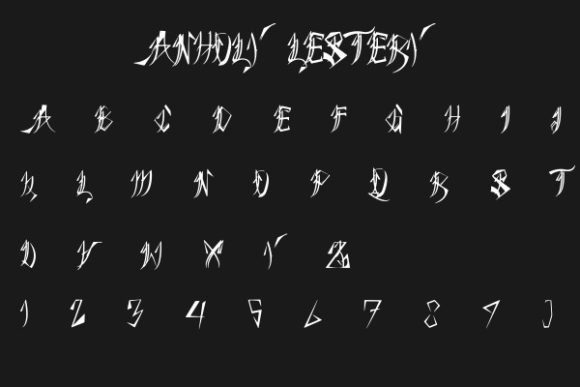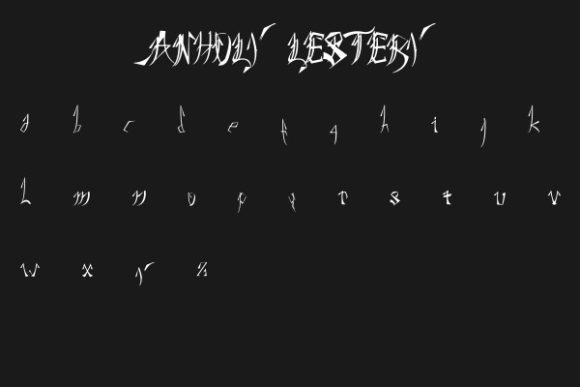
Introducing ANHOLY LESTERY Font: Elevate Your Designs with Elegance and Sophistication
In the world of graphic design, typography plays a crucial role in conveying messages, evoking emotions, and creating visual identities. For designers and crafters seeking a unique and elegant font to elevate their projects, ANHOLY LESTERY is an exceptional choice. This stunning blackletter font boasts a modern style, sophisticated design, and versatility, making it perfect for various applications, from poster design to social media graphics.
What Makes ANHOLY LESTERY Stand Out?
ANHOLY LESTERY’s distinctive blackletter style is characterized by its elegant lines, refined curves, and intricate details. This font’s new and innovative approach to traditional blackletter typography sets it apart from other fonts in the same category. Its sophisticated design ensures that it can be used for a wide range of projects, from luxurious branding and advertising to creative crafts and DIY endeavors.
Endless Design Possibilities with ANHOLY LESTERY
ANHOLY LESTERY’s versatility is one of its most significant advantages. This font can be used for various design applications, including:
- Poster Design: Create eye-catching posters for events, promotions, or announcements with ANHOLY LESTERY’s bold and elegant typography.
- Clothing Design: Add a touch of sophistication to your apparel designs, from t-shirts to hoodies, with this font’s stylish and modern aesthetic.
- Logotype Design: Develop a unique and memorable brand identity with ANHOLY LESTERY’s distinctive blackletter style.
- Design Lettering Quotes: Use ANHOLY LESTERY to create inspiring and visually appealing quotes for social media, blogs, or print materials.
- Social Media Graphics: Elevate your social media presence with ANHOLY LESTERY’s elegant typography, perfect for creating engaging graphics, headers, and captions.
Enhance Your Graphic Design Workflow with ANHOLY LESTERY
ANHOLY LESTERY is not only a beautiful font but also a practical tool for graphic designers. Its clear and readable design makes it suitable for use in various contexts, including:
- Subtitles: Use ANHOLY LESTERY for album song subtitles, book cover subtitles, or any other application where a elegant and readable font is required.
- Headings and Titles: Create stunning headings and titles for reports, presentations, or articles with ANHOLY LESTERY’s bold and sophisticated design.
Why Choose ANHOLY LESTERY Font?
When it comes to selecting a font for your design project, there are many options available. However, ANHOLY LESTERY stands out due to its:
- Unique Style: ANHOLY LESTERY’s modern blackletter style is unlike any other font, ensuring your designs will stand out from the crowd.
- Elegant Design: The font’s sophisticated design makes it perfect for projects that require a touch of luxury and refinement.
- Versatility: ANHOLY LESTERY can be used for a wide range of applications, from graphic design to crafting and DIY projects.
ANHOLY LESTERY font is an exceptional choice for designers and crafters seeking a unique, elegant, and versatile blackletter font. Its modern style, sophisticated design, and wide range of applications make it an ideal addition to any design workflow. Whether you’re working on a poster design, clothing design, logotype design, or social media graphics, ANHOLY LESTERY is sure to elevate your projects and help you achieve your creative goals.
Discover the endless possibilities with ANHOLY LESTERY font and experience the perfect blend of style, elegance, and versatility in your designs.